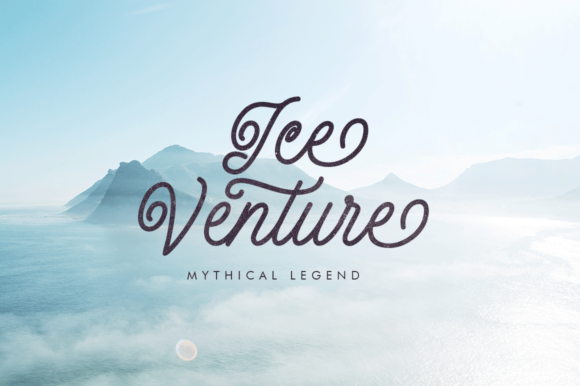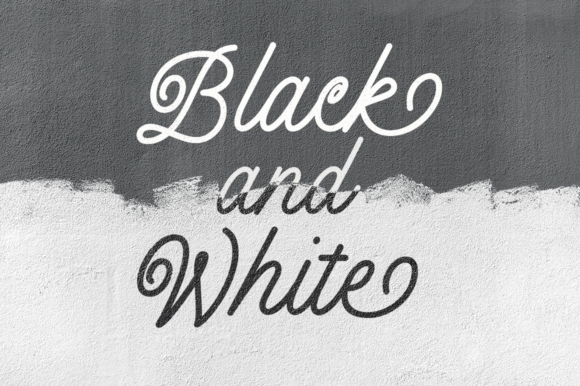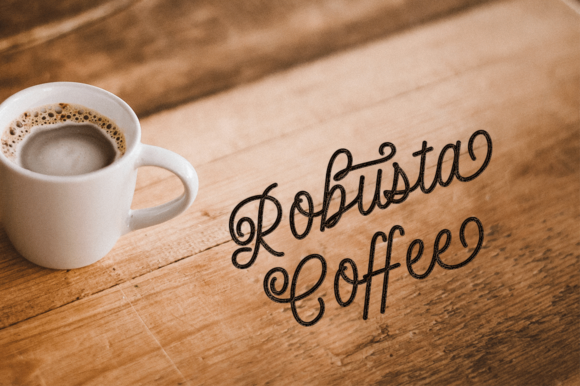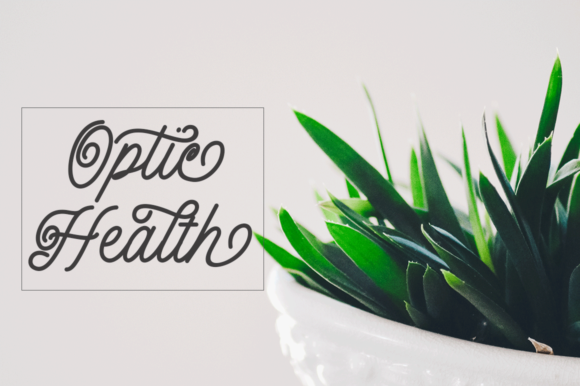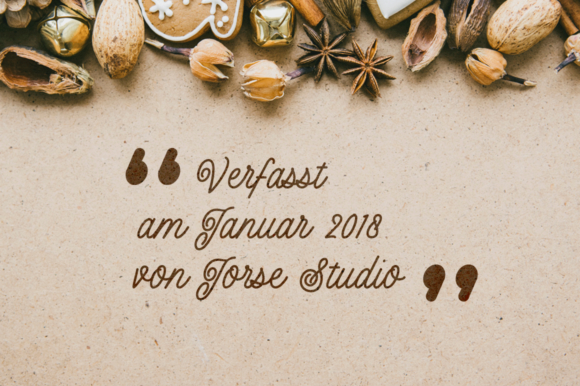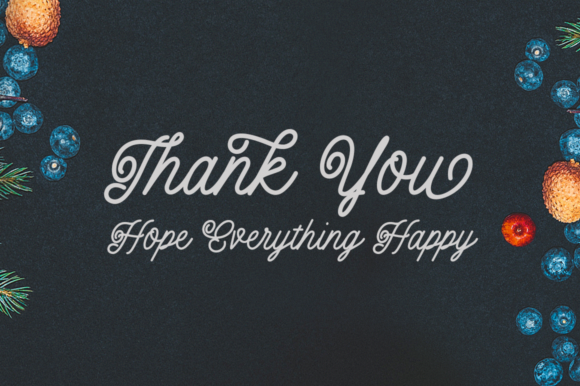
Introduction to Felicia Font
Felicia feels equally charming and elegant.
This stunning handwritten font is a stylish homage to classic calligraphy It features a varying baseline, smooth lines, gorgeous glyphs and stunning alternates.
Key Features of Felicia Font